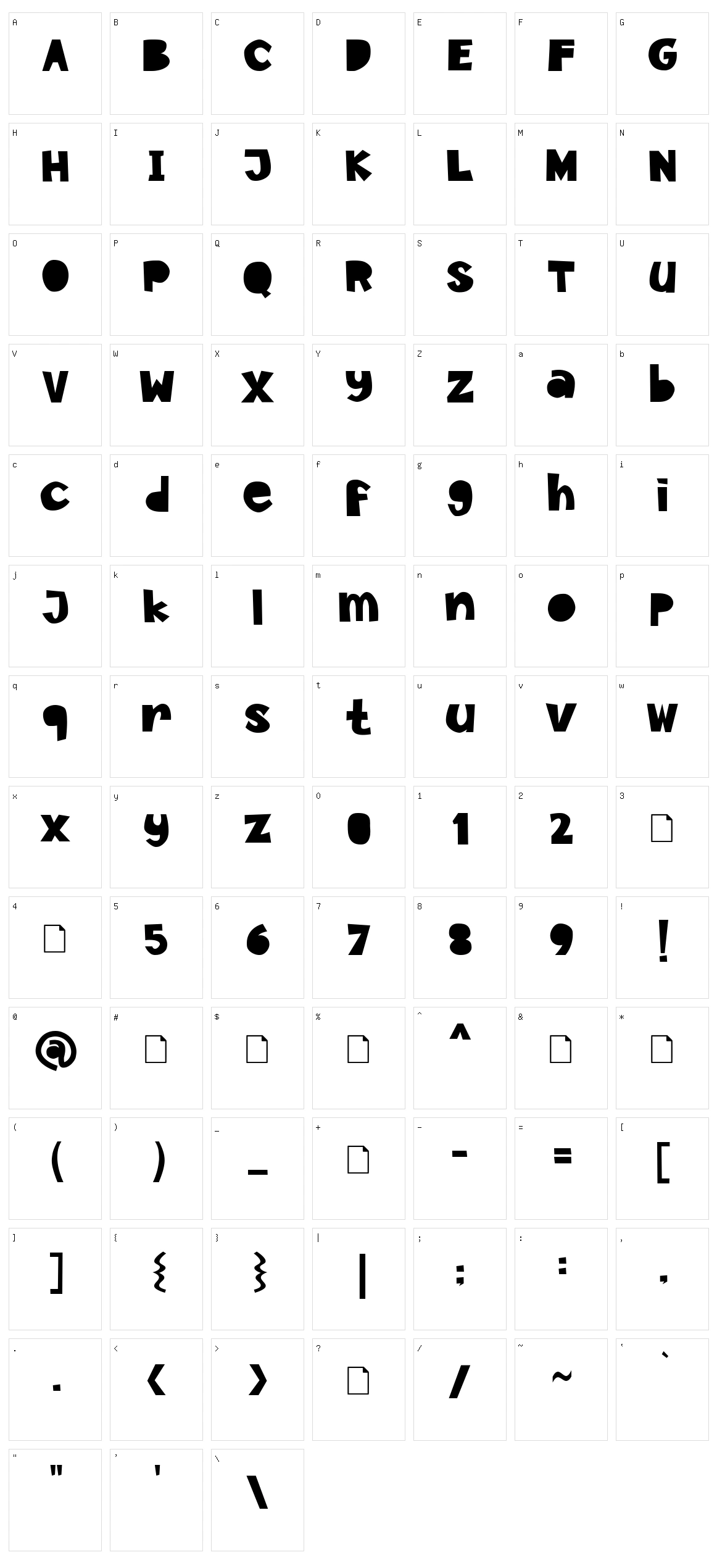
The free font Paper Cutz is carefully designed by Kurnia Setyadi, showcasing a thoughtful balance of creativity and usability and falls under the Cartoon font style. When you download the ZIP file, it contains only 27.63 KB of font files, making it lightweight and quick to download. Please review the license details below to understand permitted usage and distribution rights. If license information is not available, we recommend using this font for personal projects only or contacting the author directly for commercial usage permissions.